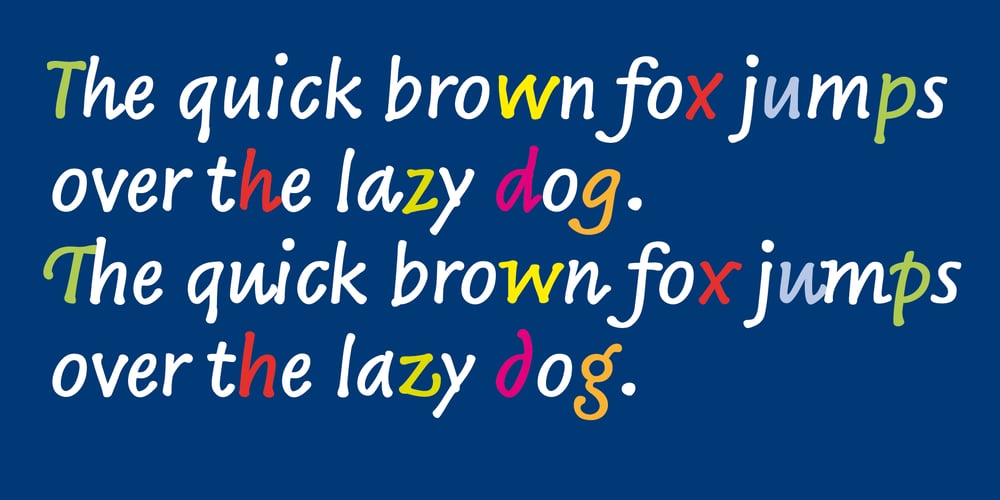
Scriptom
Scriptom font
Scriptom Font Family was designed by Thomas Matthias Hofmann and published by Typotom Manufaktur Berlin. Scriptom contains 1 styles and family package options. The Scriptom offers a harmonious font image for personal texts in the style of a felt-tip handwriting. The font contains 1300 glyphs for all Latin alphabets. The many ligatures and alternative forms for word beginnings, the middle or end of words, provide a vivid impression. The font appears calm, but not artificial or intentionally calligraphic.